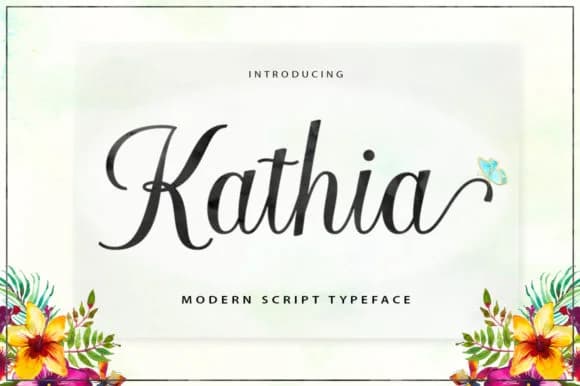
1 / 7About Kathia Script Font
Kathia Script Font by STRAIGHT.CO is a modern calligraphy typeface that strikes a careful balance between refined polish and genuine approachability. The letterforms flow with natural rhythm and grace, while the included swashes add character and visual interest without ever overwhelming a design. This is a script that reads as thoughtful and refined rather than overly formal or rigid. It works across different applications that demand elegance and sophistication without pretension or excessive ornamentation.
Wedding invitation suites benefit immediately from this font's flowing curves, while the casual undertone keeps the overall aesthetic feeling contemporary rather than nostalgic or stiff. Boutique product packaging shines equally well with Kathia's warmth, especially for skincare and cosmetics, artisanal tea labels, handmade soaps, and other specialty goods that genuinely need a human touch. Restaurant menus, personalized stationery and letterpress projects, specialty brand logos, and independent shop signage all gain a natural sophistication when rendered in this typeface. The built-in swashes provide enough personality for headlines and standalone text work, while the core letterforms remain readable at smaller sizes for practical applications like labels and body copy.
Kathia Script Font is a script font that shines as a display or heading face. Pair it with a clean sans-serif or serif font for body text β the contrast creates a clear hierarchy while the two styles stay balanced and easy to read.
Kathia Script Font
by STRAIGHT.CO